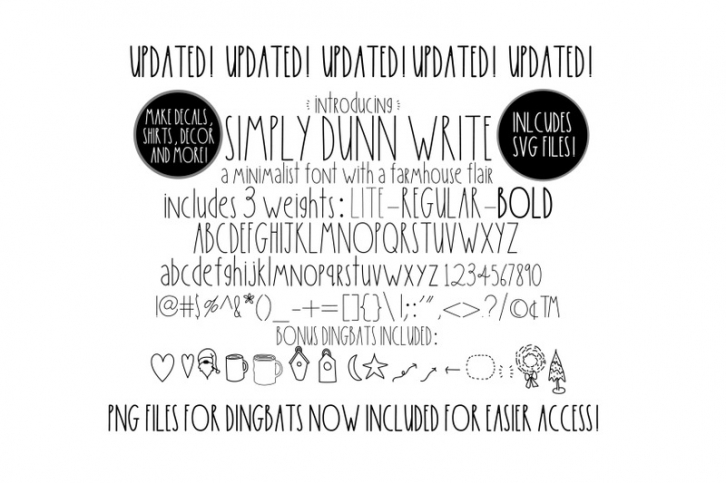
Includes 3 weights: Lite, Regular and Bold
All fonts include uppercase, lowercase, numbers, punctuation and bonus dingbats.
Perfect for making decals, home decor, shirts and more.
Font is based on the famous pottery designer.